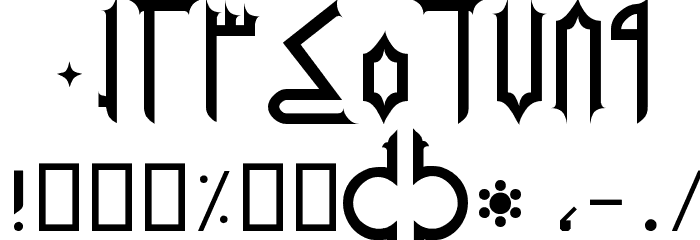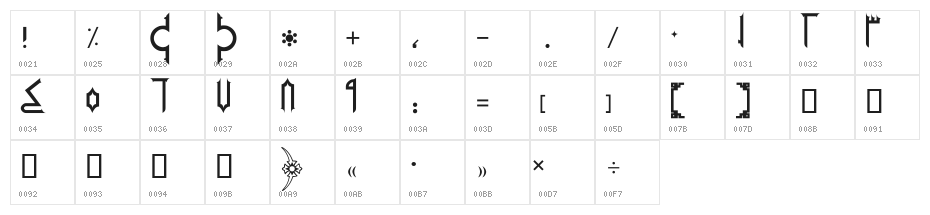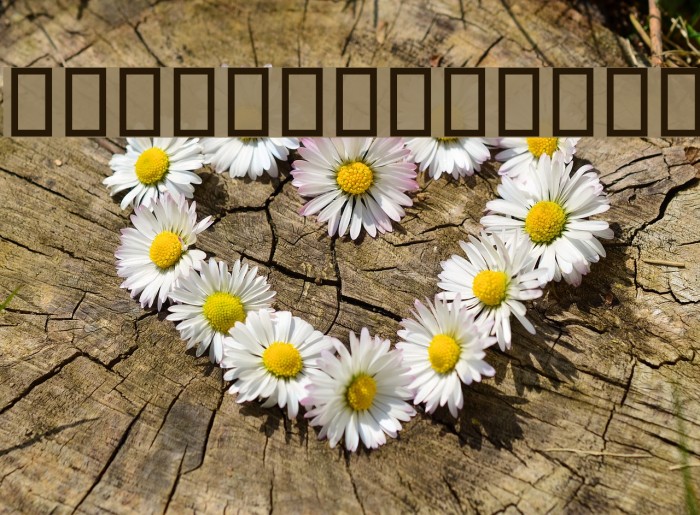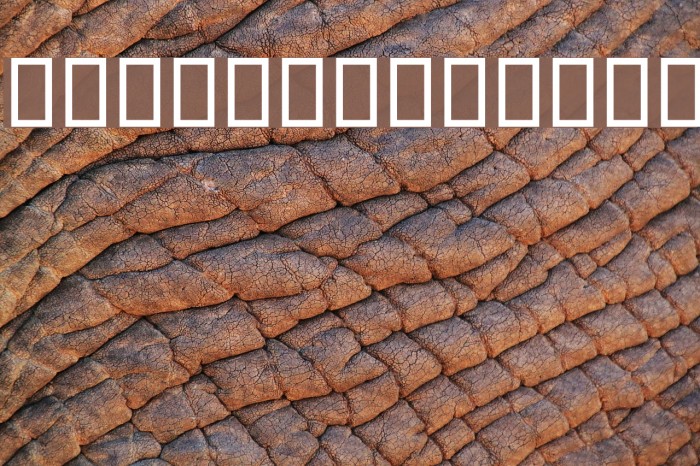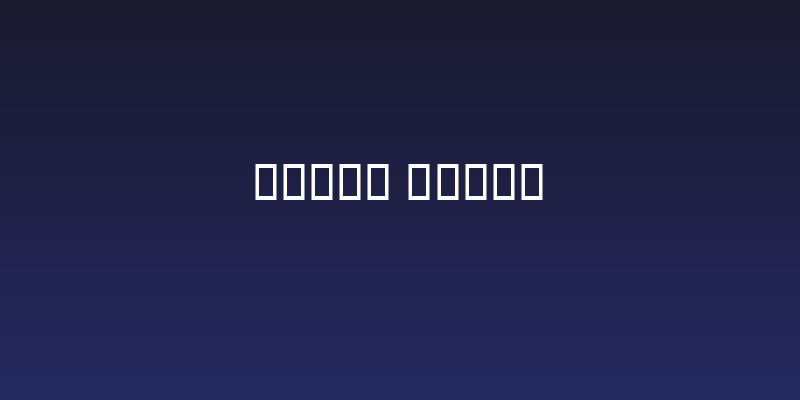
Islam Fancy Font
Islam Fancy Description
This font features a unique and ornate design, characterized by intricate details and a decorative style. The letters are stylized with sharp, angular lines and elaborate embellishments, giving it a distinct and artistic appearance. The font's design draws inspiration from traditional calligraphy, incorporating elements that evoke a sense of historical and cultural richness. The characters are bold and striking, making them suitable for creating impactful visual statements. The overall aesthetic is both elegant and dramatic, making it ideal for projects that require a touch of sophistication and flair.
| Proposed Projects | Ideal for cultural event posters, artistic book covers, and decorative signage. |